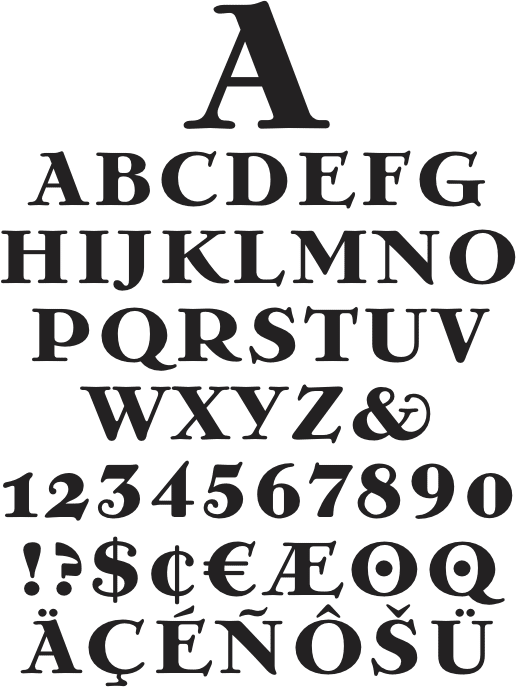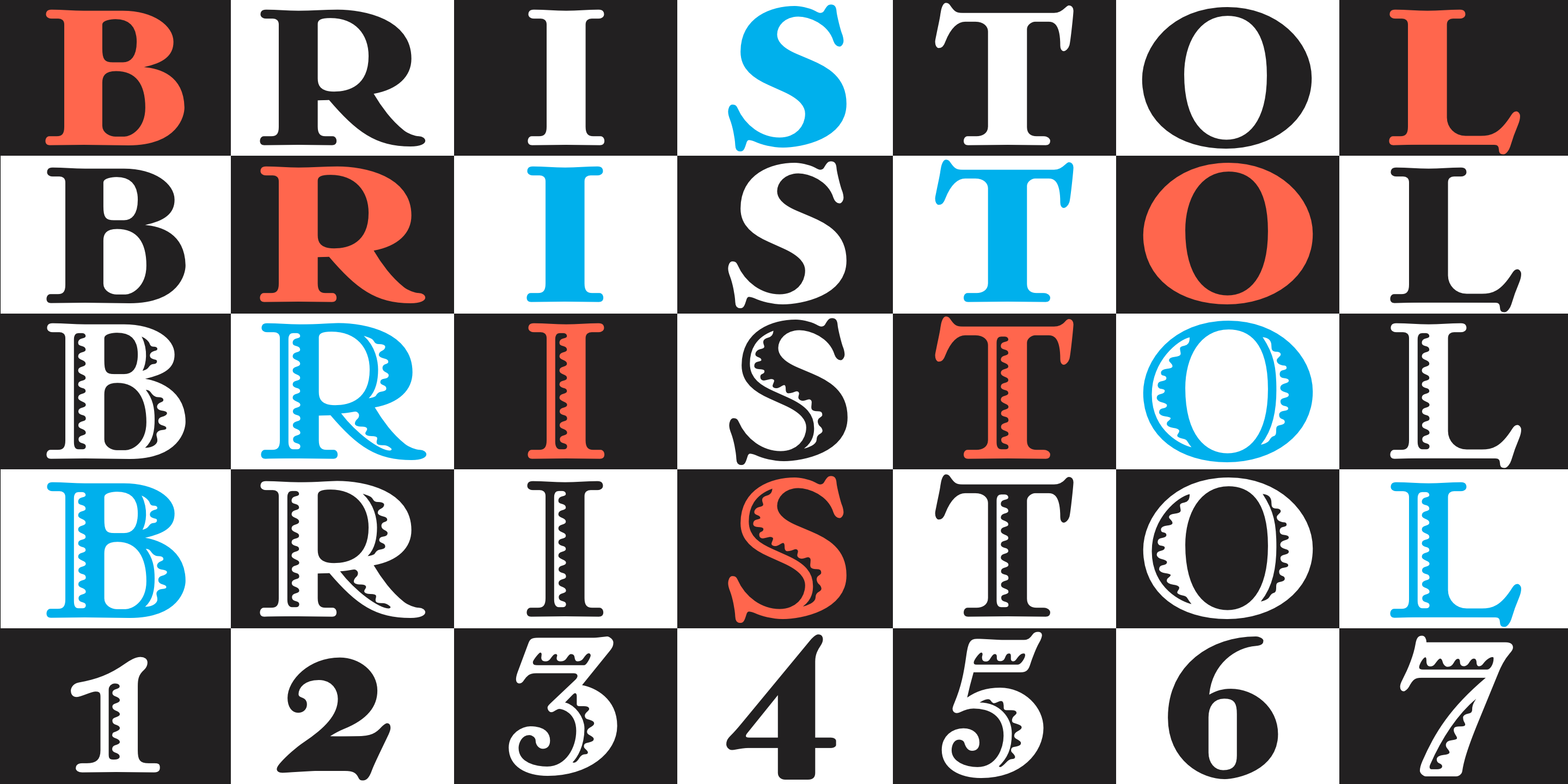
Bristol™ Solid (GroupType)
Bristol and Bristol Adornado (also known as Greco) was first released by Fundición Richard Gans of Madrid, Spain, in 1925. The Richard Gans Foundry is a defunct Spanish foundry which existed from 1888-1975. Throughout its existence, types were designed by a number of people including José Ausejo Matute (d. 1998), Antonio Bilbao (who created Escorial in 1960), the son Ricardo Gans, and Carl Winkow. GroupType's versions of this font pair have been with FontHaus since the mid 1990s. Bristol is a charming and strong period design. Its structure is masculine and vertical. A great poster font and the Adornado style is an excellent choice for an eye-catching large drop cap.GROUPTYPE END USER LICENSE AGREEMENT